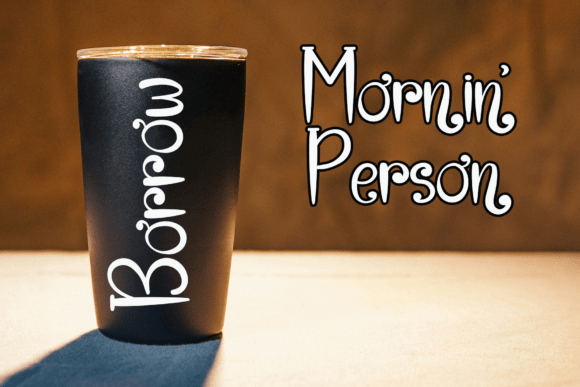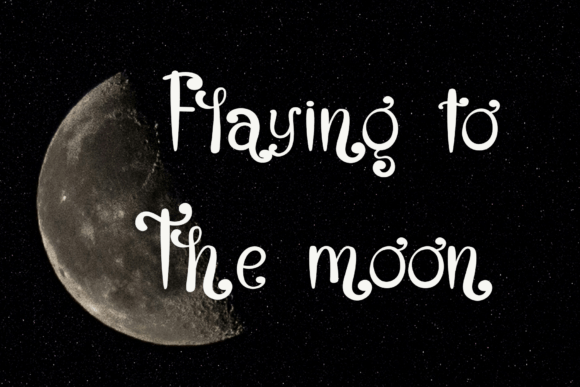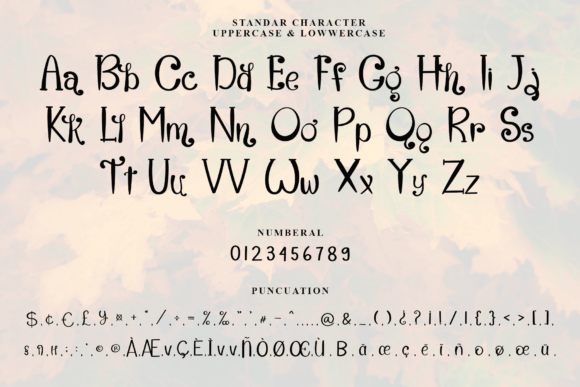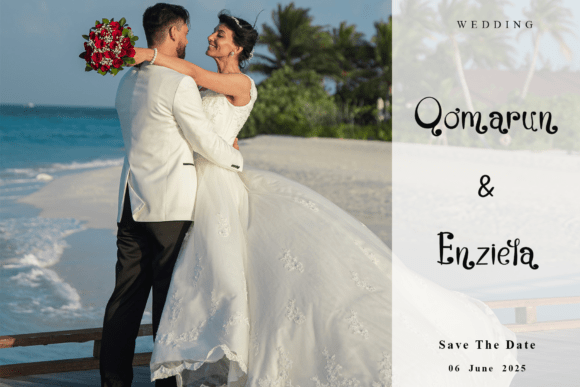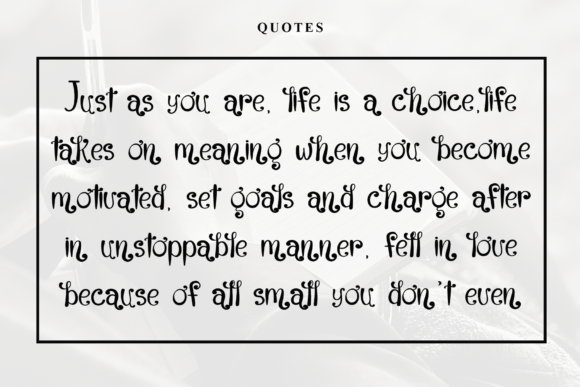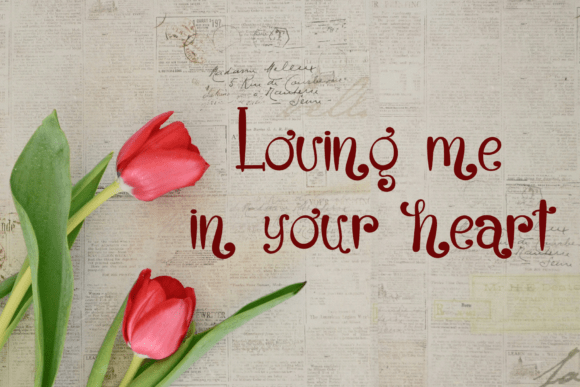
The Easter Font: Elevate Your Designs with Timeless Elegance
I’ll never forget the time I was working on a last-minute Easter-themed project for a client, scrambling to find the perfect font that would capture the essence of the holiday. The design needed to be elegant, yet playful; classic, yet modern. As I sifted through my font library, I stumbled upon the Easter font, and it was love at first sight! With its trendy handwritten style and impeccable form, I knew I had found the perfect fit. In this article, I’ll share my experience with the Easter font, its features, and how to make the most of it in your designs.
The Easter font has quickly become one of my go-to fonts for various design projects. Here’s what I love about it:
- ✨ Timeless elegance: The Easter font boasts a classic, sophisticated look that’s perfect for Easter-themed designs, wedding invitations, or any project that requires a touch of refinement.
- ✅ Contemporary atmosphere: Despite its classic roots, the font has a modern feel that will make your designs stand out from the crowd.
- 💫 Impeccable form: The font’s attention to detail and precise craftsmanship make it a joy to work with.
While the Easter font is exceptional, it’s not without its quirks:
- 🤔 Limited multilingual support: The font may not support a wide range of languages, so be sure to check its capabilities before using it for a multilingual project.
- ⚠️ Occasional kerning issues: As with any font, you may encounter some kerning issues, especially when using it at smaller sizes.
The Story Behind the Easter Font
The Easter font was inspired by the timeless world of classic calligraphy. Its creator, a renowned type designer, sought to craft a font that would evoke the elegance and sophistication of traditional calligraphy, while still feeling modern and fresh. The result is a font that is both nostalgic and cutting-edge, perfect for designers looking to add a touch of refinement to their work.
| Font Name | Easter Font |
| Author | pinkmeca |
| What is the Easter font best suited for? | The Easter font is ideal for designs that require a touch of elegance and sophistication, such as Easter-themed projects, wedding invitations, and formal events. |
| Is the Easter font suitable for body text? | While the Easter font is beautiful, it’s best suited for headlines and titles. Its elegant feel may not be suitable for large blocks of body text. |
| Does the Easter font support OpenType features? | Yes, the Easter font supports OpenType features, such as stylistic alternates and glyphs, which can add visual interest to your designs. |